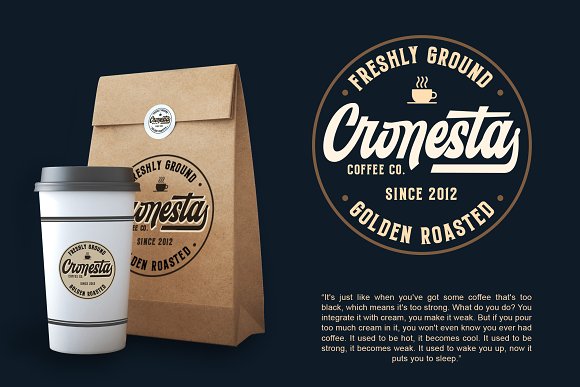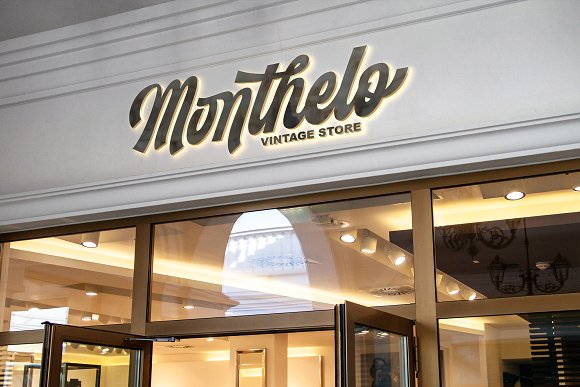
Monthelo Vintage Font
Hello!! This font was designed by handwriting, and it has a modern and unique forms of vintage, the writing style is very natural. Introducing Monthelo Font! Monthelo designed and shared by Blankids Studio. Monthelo font under inspiration of vintage bar signage, hotel signage, barbershop signage ect. Montelo has a classic impression but still elegant suitable for modern and classic designs project. Montelo include 3 variation style is regular script, extured and serif. Monthelo are perfect for badge, label, tshirt design, branding, logotype, poster, book cover, packaging and more.